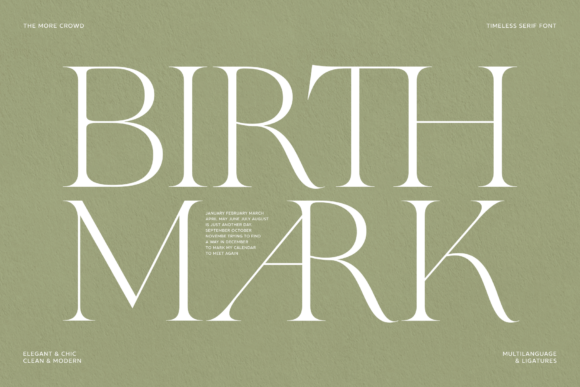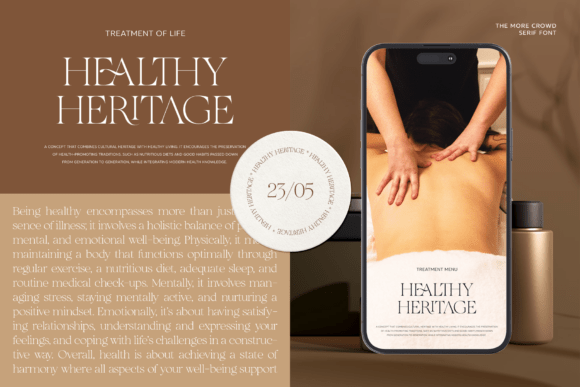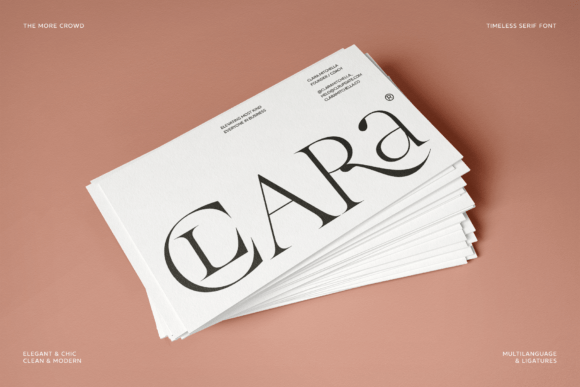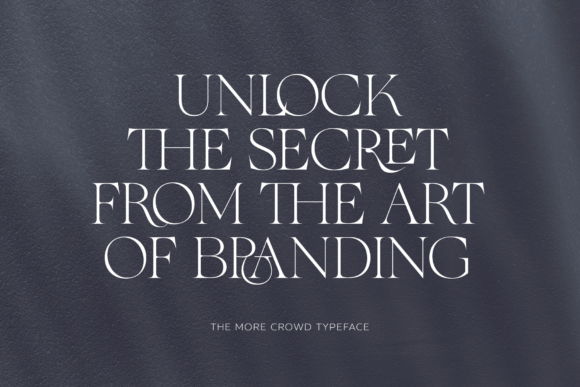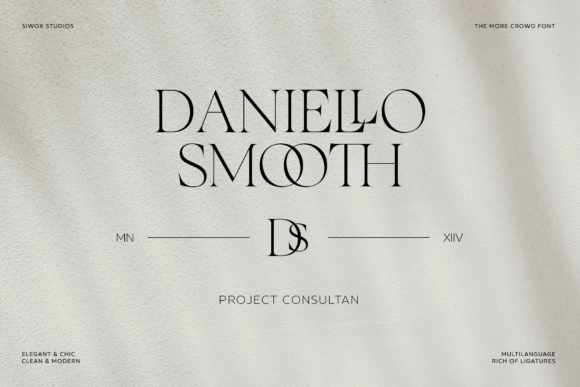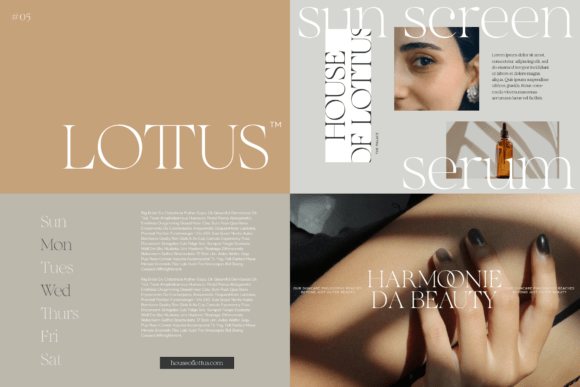
Unleash Timeless Sophistication with The More Crowd: A Versatile Serif Typeface
In the world of typography, few typefaces manage to strike a balance between classic elegance and modern flair. The More Crowd, a sophisticated serif font, is one such rare gem that seamlessly blends the best of both worlds. With its striking contrasts, flowing curves, and versatile design, The More Crowd is poised to elevate any creative project, be it a stylish magazine spread, a distinctive brand identity, or a compelling website.
The Essence of The More Crowd
The More Crowd is more than just a typeface; it’s an experience. Its design is rooted in the principles of traditional serif typography, yet it incorporates modern elements that make it fresh and relevant. This harmonious blend of old and new results in a font that exudes sophistication, elegance, and a hint of contemporary charm.
Key Features of The More Crowd
- Striking Contrasts: The More Crowd boasts dramatic contrasts between its thick and thin strokes, giving it a luxurious feel that’s perfect for high-end branding and editorial design.
- Flowing Curves: The font’s curves are meticulously crafted to provide a sense of fluidity and movement, making it ideal for creating visually engaging content.
- Versatile Design: Whether you’re working on a digital platform or a print project, The More Crowd adapts seamlessly, ensuring your message is conveyed with clarity and style.
Applications of The More Crowd
The More Crowd’s versatility makes it an excellent choice for a wide range of applications. Here are a few ways you can leverage this elegant typeface:
- Magazine and Editorial Design: Bring a touch of sophistication to your magazine spreads, articles, and editorials with The More Crowd’s classic yet contemporary aesthetic.
- Branding and Identity: Establish a strong brand presence with a typeface that communicates luxury, elegance, and refinement.
- Web Design: Enhance your website’s typography with The More Crowd, ensuring a memorable user experience that sets your brand apart.
Why Choose The More Crowd?
In a sea of typefaces, The More Crowd stands out for several reasons:
- Timeless Appeal: Its classic design ensures that your work remains relevant and stylish for years to come.
- High Versatility: The font’s adaptability makes it suitable for a wide range of projects, from digital interfaces to print materials.
- Emotional Connection: The More Crowd’s elegant curves and sophisticated demeanor evoke an emotional response, engaging your audience on a deeper level.
The More Crowd is not just a typeface; it’s a tool for creative expression. Its unique blend of classic sophistication and modern aesthetics makes it an indispensable asset for designers and crafters looking to make a lasting impression. Whether you’re aiming to create a distinctive brand identity, craft compelling content, or simply elevate your design work, The More Crowd is the perfect choice. Unveil the timeless sophistication of The More Crowd in your next project and witness the transformative power of typography.
Discover the elegance. Experience the versatility. Elevate your design with The More Crowd.